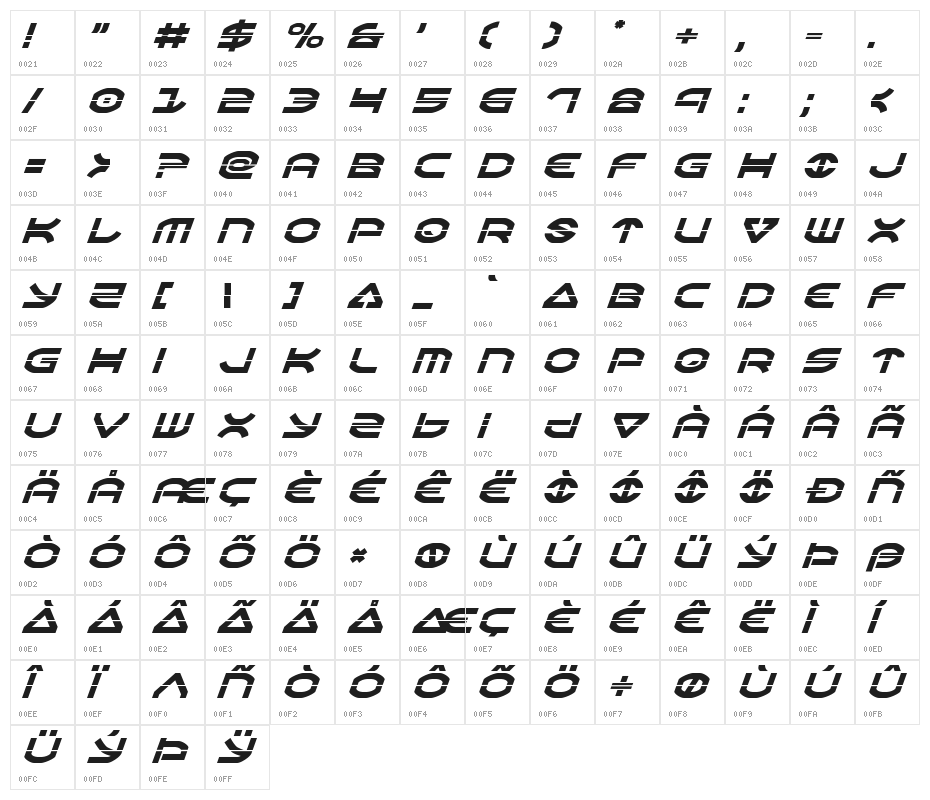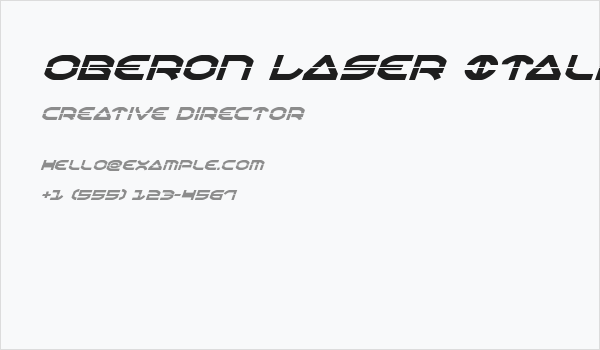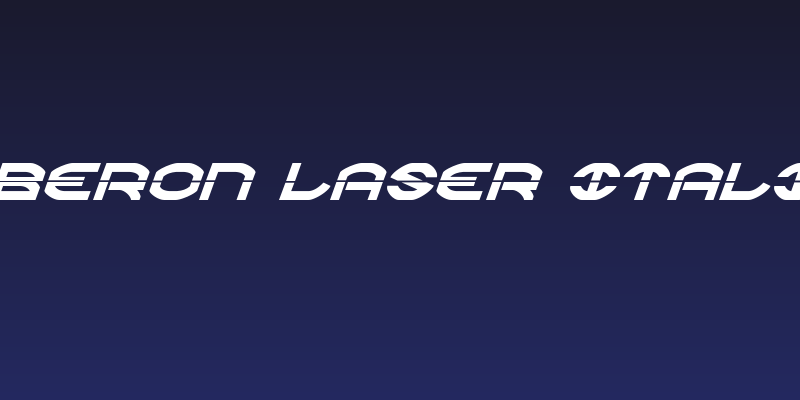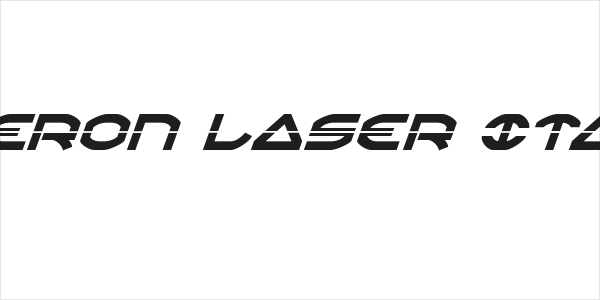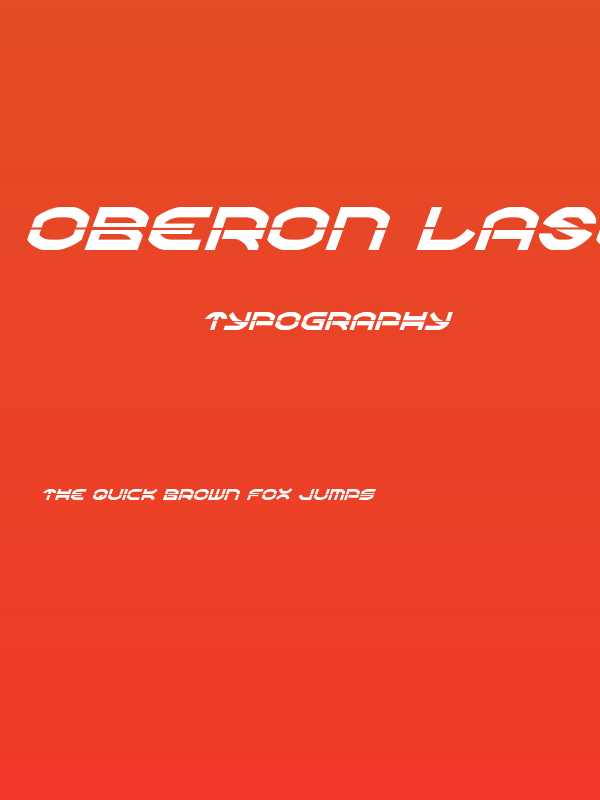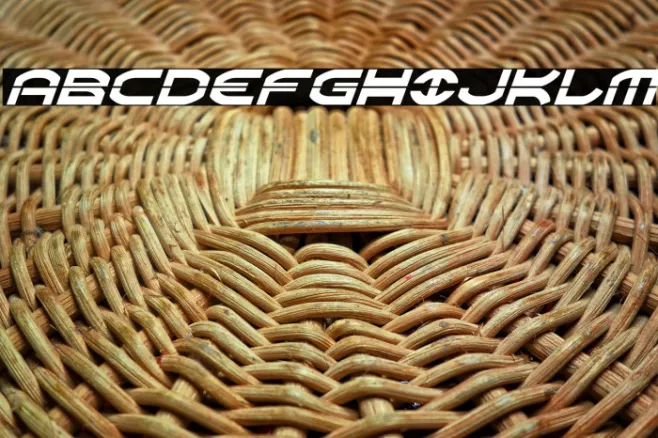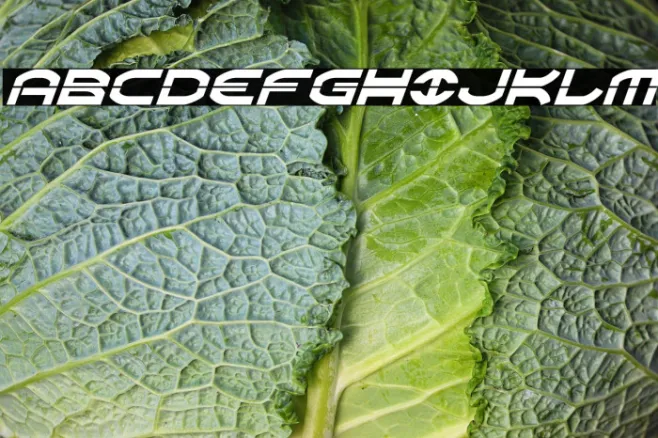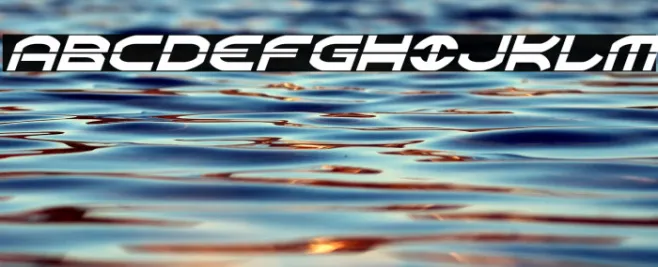
Oberon Laser Italic Font
Oberon Laser Italic Description
This font features a futuristic and angular design, characterized by sharp edges and geometric shapes. The letters are italicized, giving a sense of motion and speed. The style incorporates cut-out sections within the characters, adding a unique and modern twist. The overall appearance is bold and striking, making it ideal for attention-grabbing designs. The numbers and special characters follow the same angular and dynamic style, ensuring consistency across all glyphs.
| Proposed Projects | Ideal for sci-fi themed projects, technology branding, video game titles, and modern posters. |